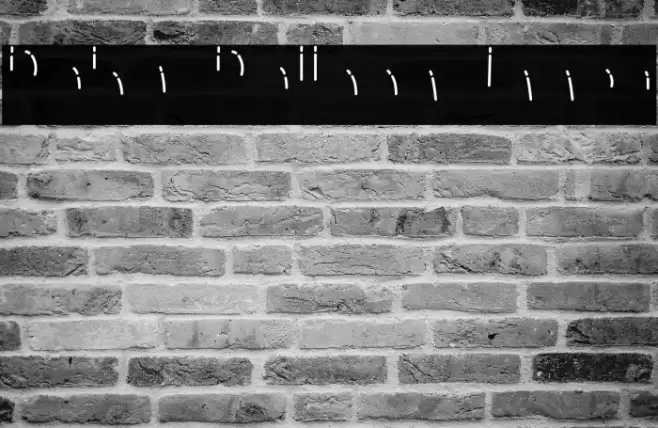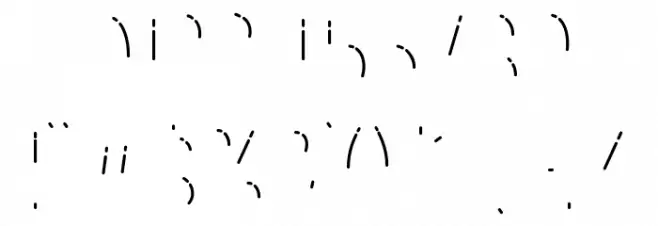
Baby Balloon Inner Font
Baby Balloon Inner Description
This font features a playful and whimsical design, characterized by its dotted and segmented strokes that give it a unique, airy appearance. The letters are formed with a series of disconnected lines, creating a sense of lightness and fun. This style is reminiscent of balloons or bubbles, making it ideal for projects that require a touch of creativity and imagination. The font maintains a consistent stroke width throughout, contributing to its clean and modern look. Its distinct style makes it stand out, perfect for capturing attention in various design contexts.
A playful, segmented font with a whimsical, airy design from Comic fonts.
- Proposed Projects: Ideal for children's book covers, party invitations, playful branding, and creative posters.
- Character Spacing: Wide
- Overall Style: Playful, Modern